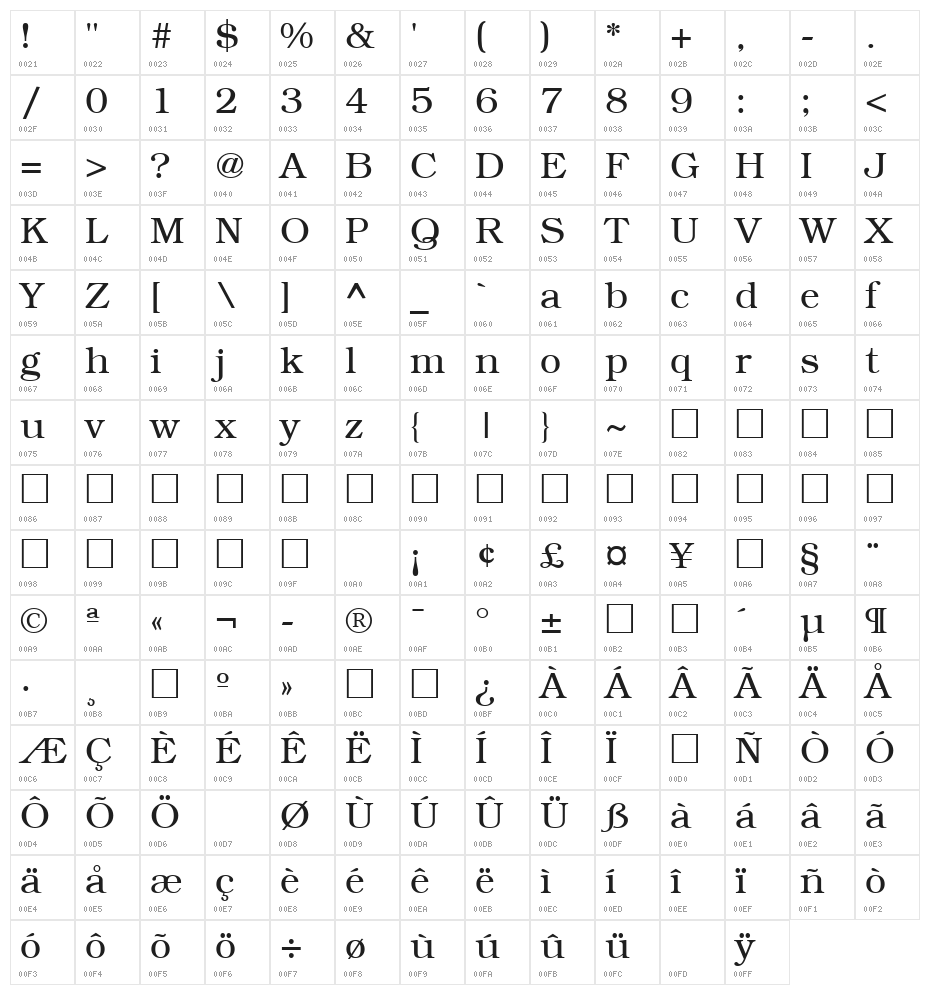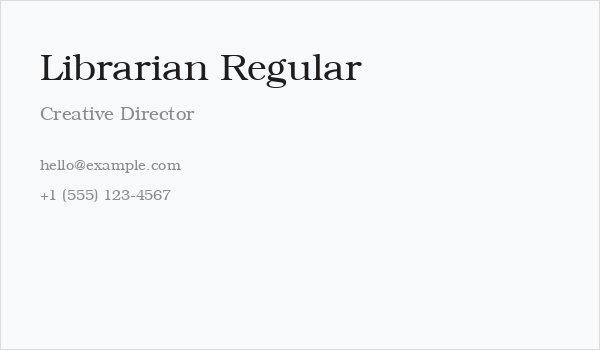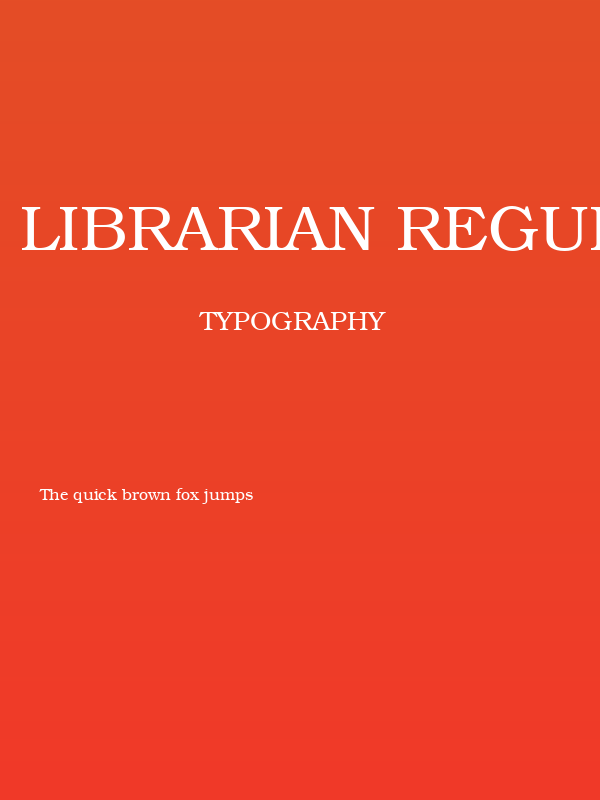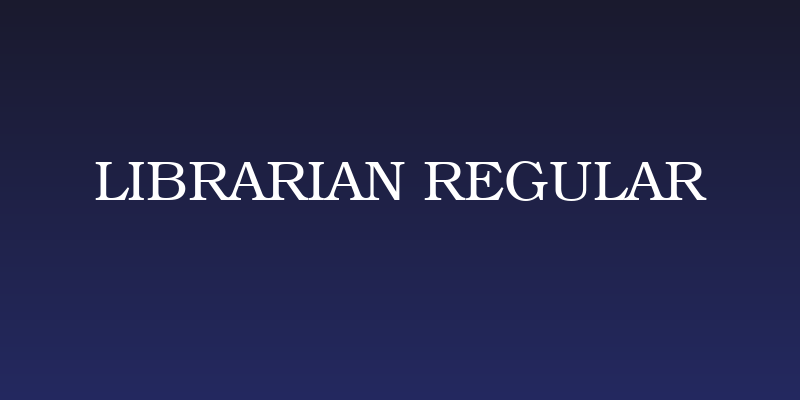
Librarian Regular Font
✎ Serif
| Caso d'uso | Body text, Headlines, Editorial design |
| Progetti proposti | Ideal for editorial design, book publishing, formal invitations, and corporate branding. |